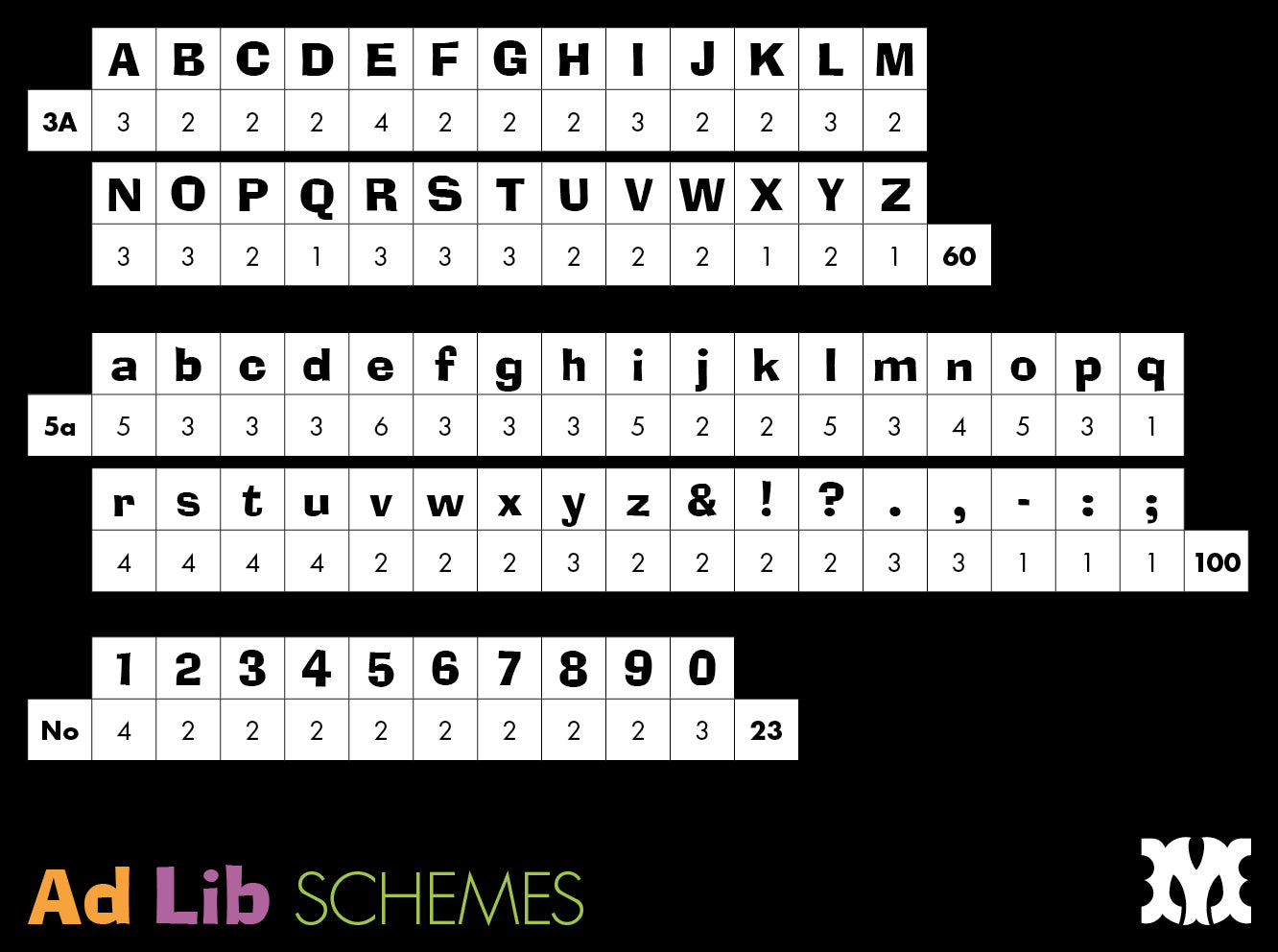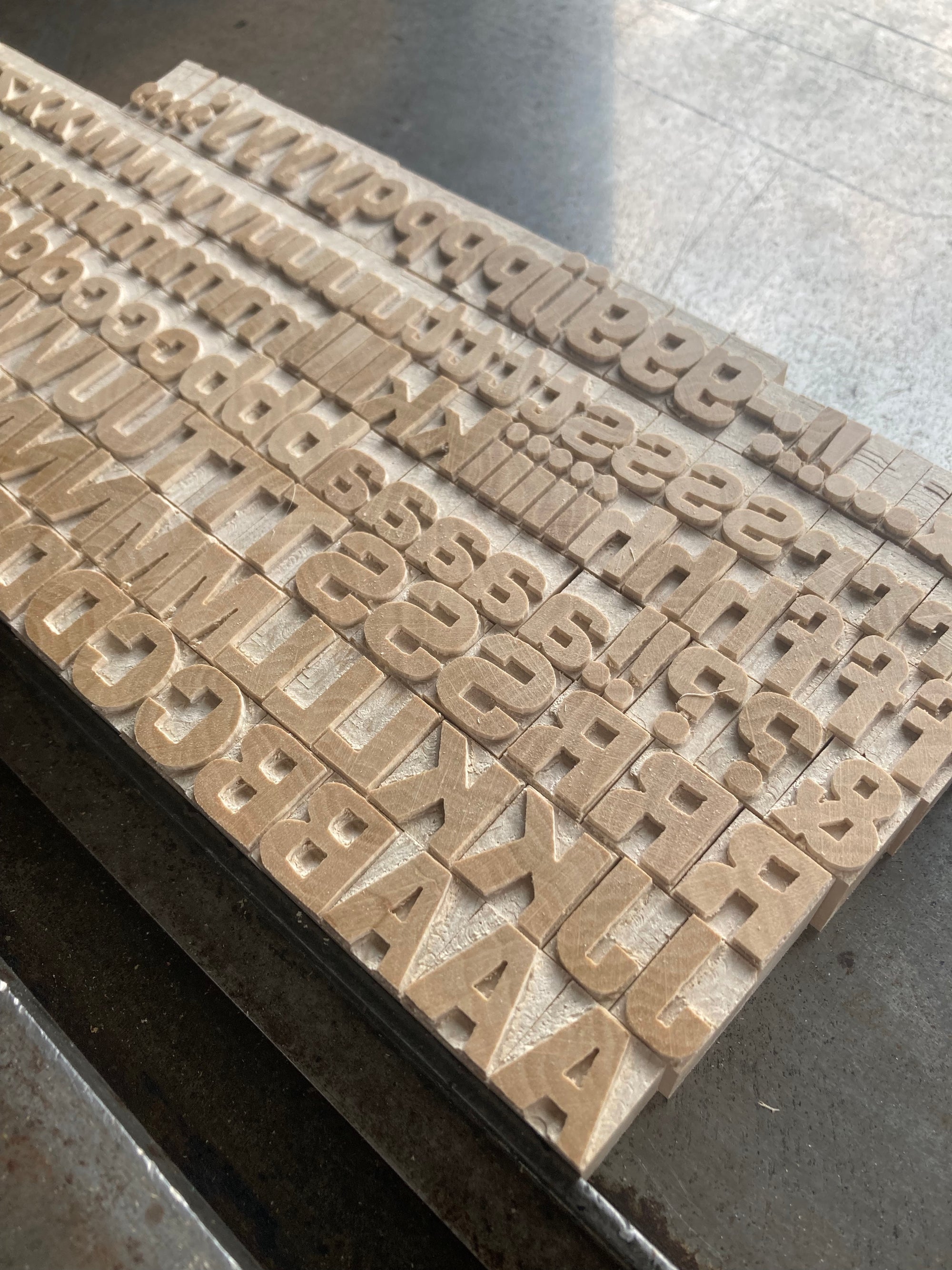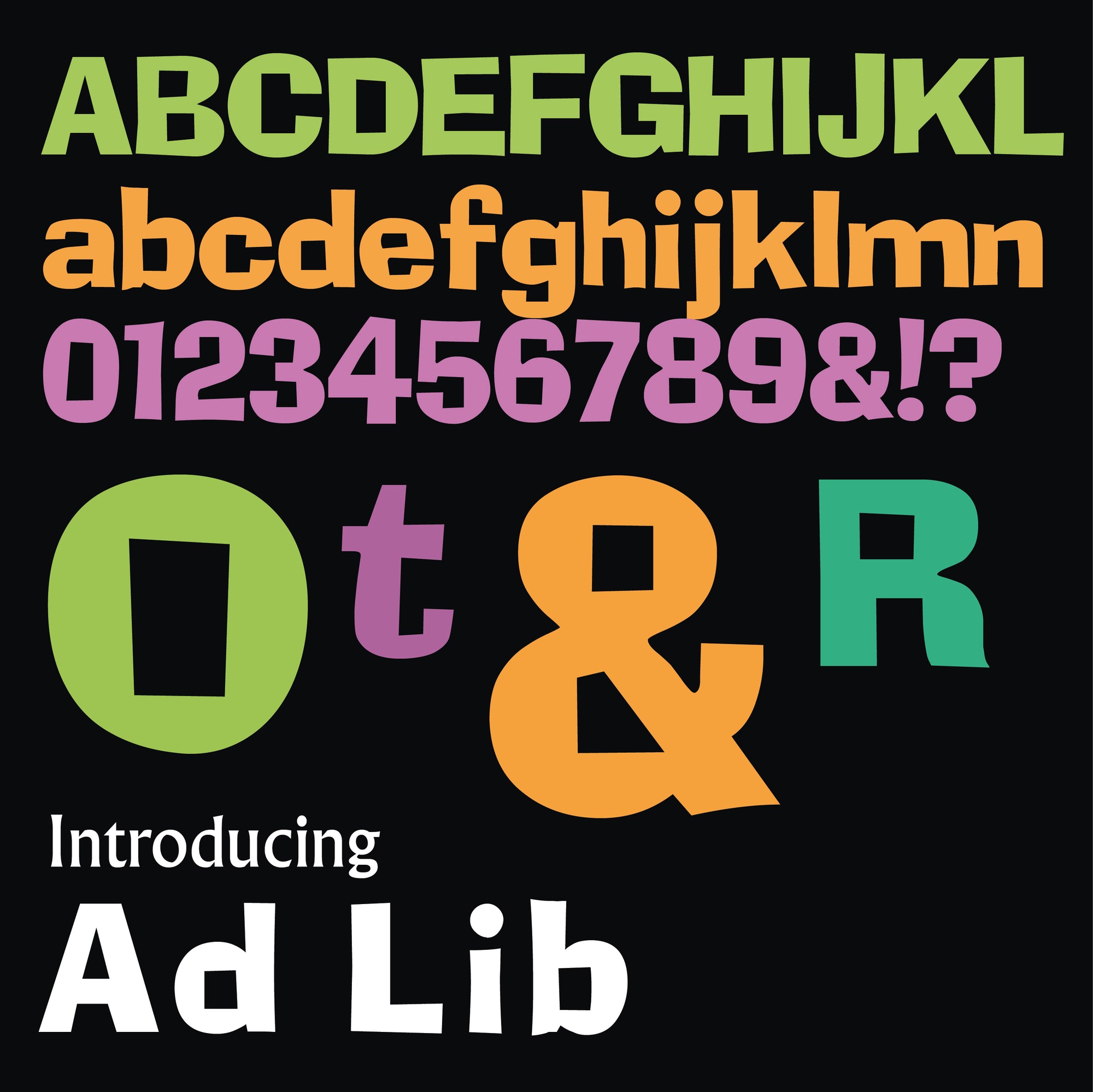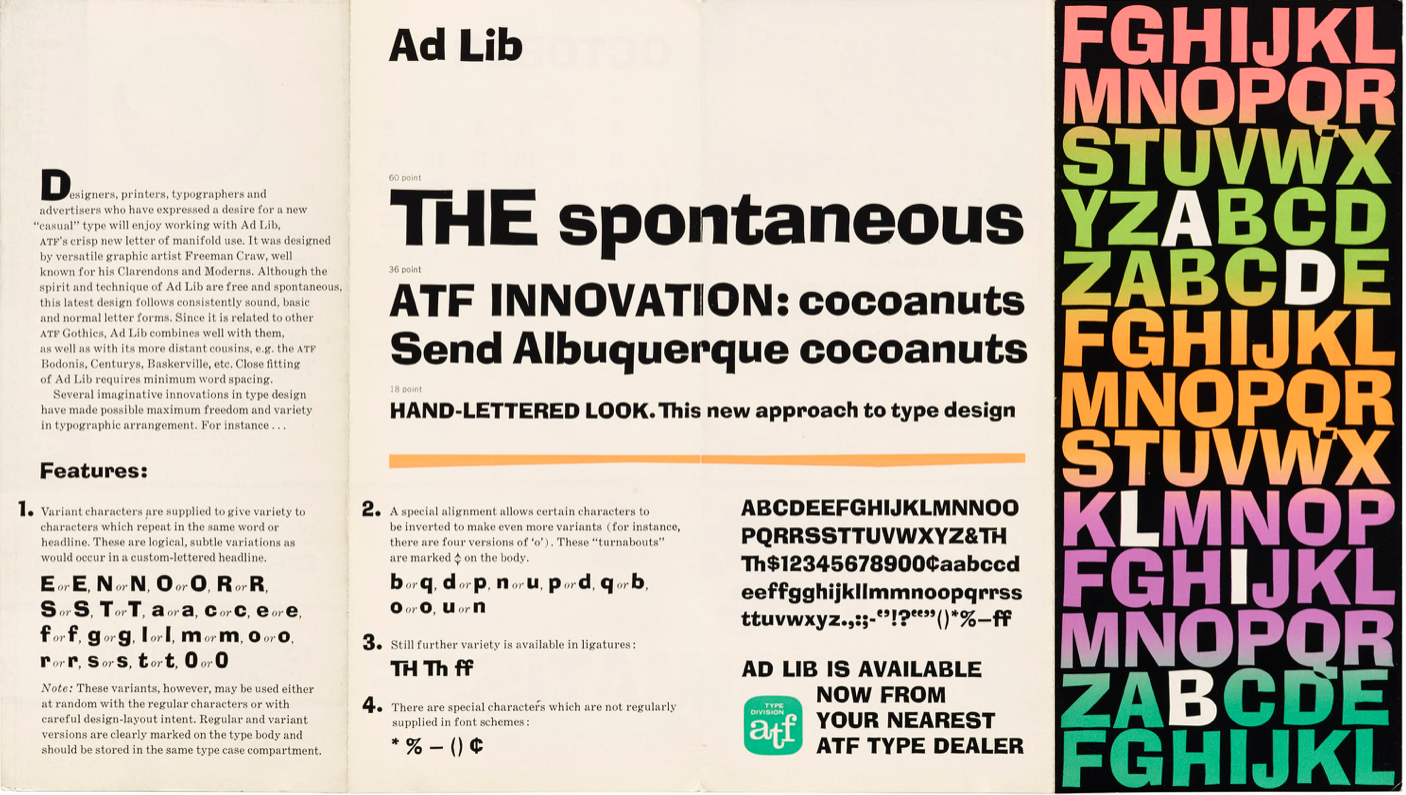
'Ad Lib' letterpress woodtype typeface
Introducing 'Ad Lib' - designed in 1961 by Freeman Craw for American Type Founders and available in woodtype for the first time.
10 line (42.3mm) and 6 line (25.4mm) versions cut from end grain English hardwood using a combination of modern CNC technology and traditional hand woodworking tools (including an original printers saw), made to English type-high (0.918in or 23.3mm) within plus or minus 0.1mm tolerance, sealed with shellac and hand finished with a traditional polished printing surface.